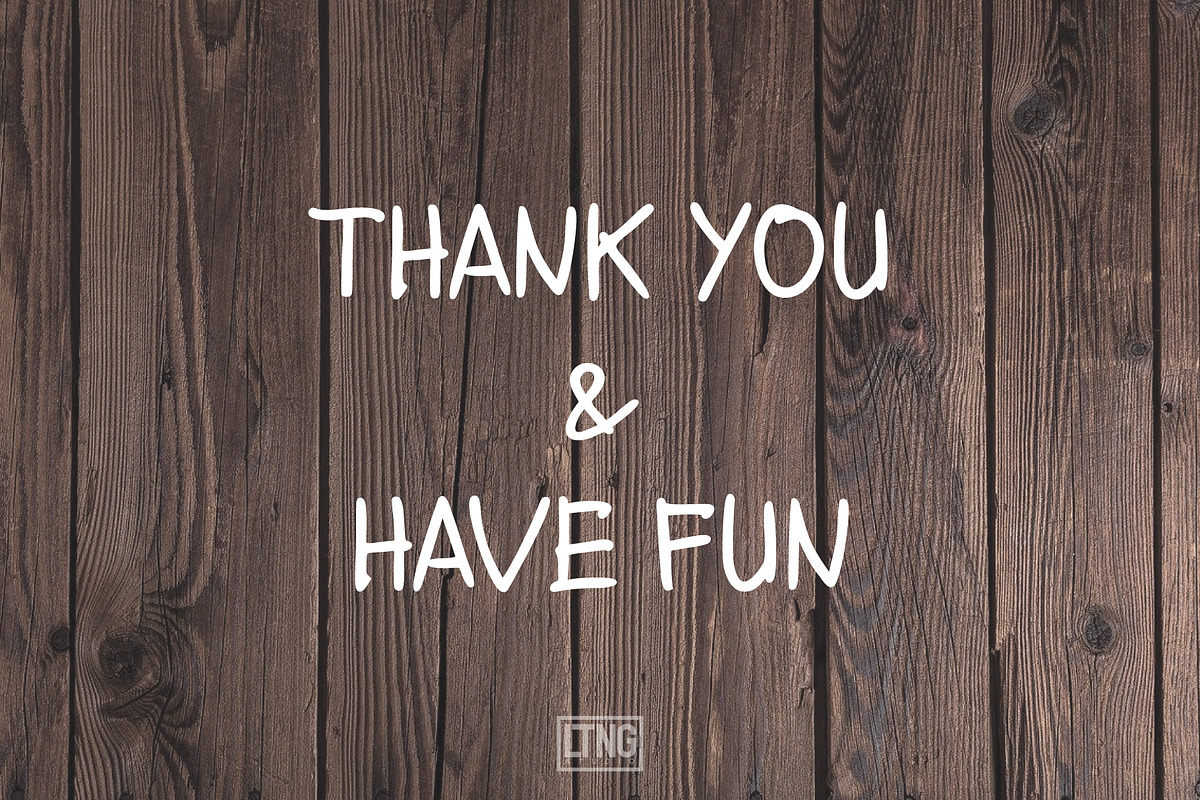
Santosa Handwriting
Santosa Handwriting Introducing Santosa Handwriting, this is my Father's handwriting, he wrote this about 2 years ago when I started to learn making font I ask him can you write your handwriting. At this time he can not write again because of stroke disease. I try to make a memory of him with the font I Made for him and made a preview of fatherhood with quote. I hope with this story, this font and preview will inspire you to love your father more and more because right now I am a Father too and I feel his feeling when he hugged me tightly. Love you Dad.